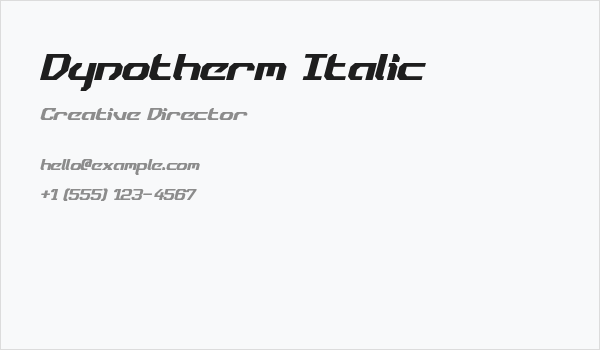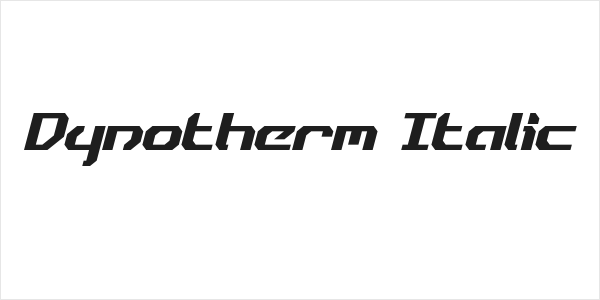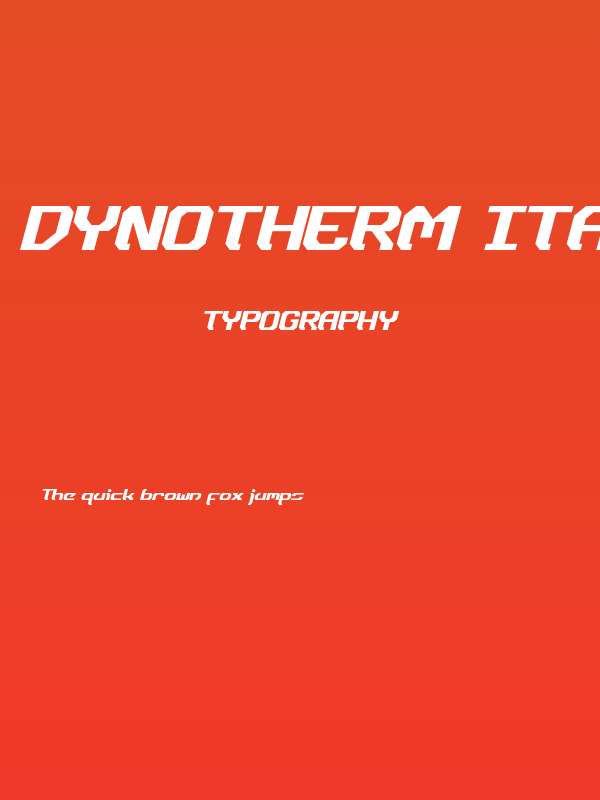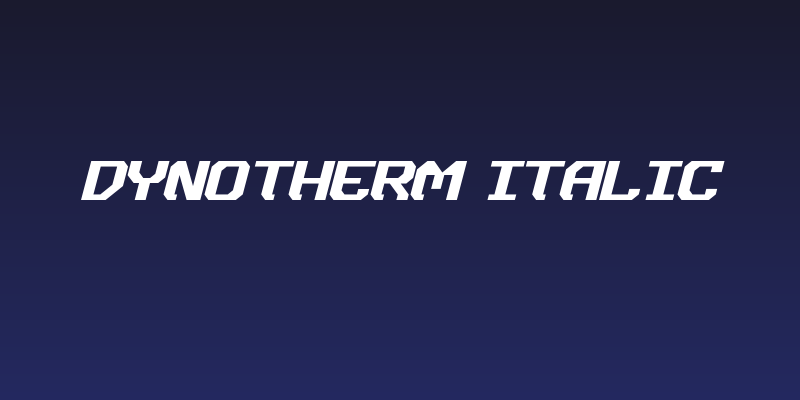
Dynotherm Italic Font
Dynotherm Italic Description
This font features a bold and dynamic italic style with angular, geometric shapes that convey a sense of speed and modernity. The uppercase and lowercase letters maintain a consistent slant, enhancing the italic effect. The numbers are equally bold, with sharp edges and a futuristic appearance. Special characters are designed to match the overall aesthetic, providing a cohesive look across all elements. The font's unique style makes it stand out, suitable for projects that require a strong visual impact.
| Proposed Projects | Ideal for sports branding, automotive designs, tech-related projects, and dynamic advertising campaigns. |